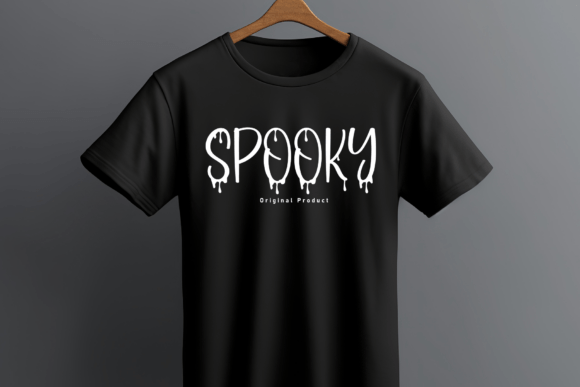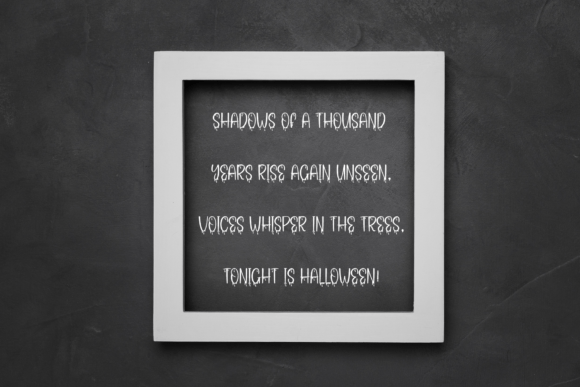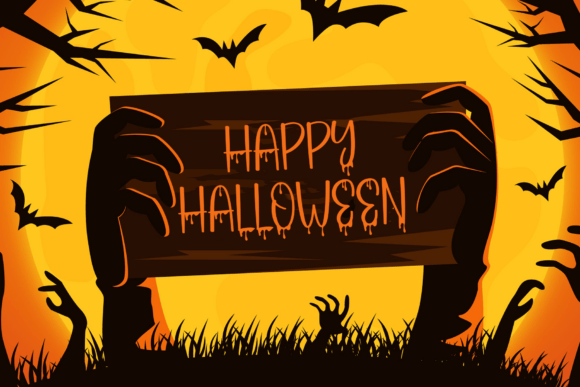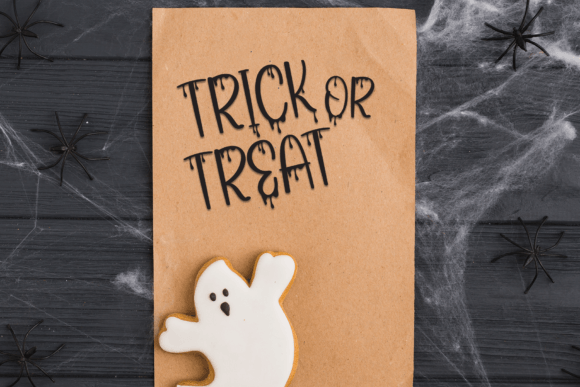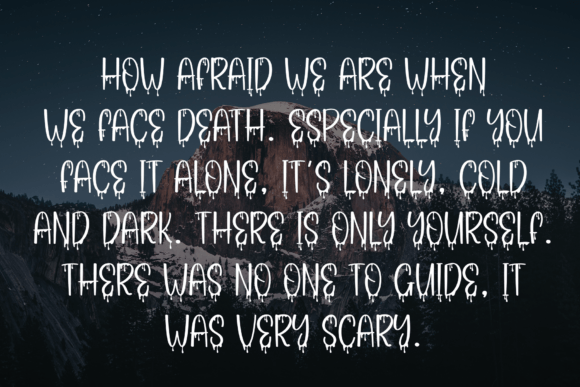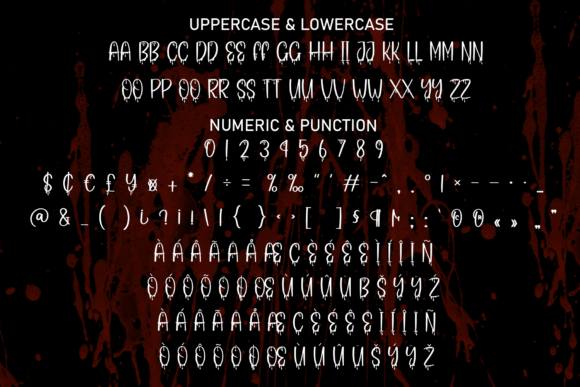
The Blood Feast Font: A Spooky, Horror-Inspired Masterpiece
As a designer, I’ve had my fair share of late nights scrolling through font libraries, searching for that perfect typeface to bring a project to life. But one font that still gives me goosebumps to this day is the Blood Feast font. Its bold, dripping handwritten style is perfect for horror themes or Halloween projects, and I’m excited to share my experience with you.
A Personal Design Moment: When Fonts Make or Break a Project
I recall working on a Halloween-themed project for a client who wanted a spooky, eerie vibe. I spent hours browsing through font libraries, but nothing seemed to fit the bill. That was until I stumbled upon the Blood Feast font. Its uneven letters and dripping edges immediately caught my attention, and I knew I had found the perfect fit. The client loved it, and the project turned out amazing.
So, what makes the Blood Feast font so special? Here are some things I love:
• ✨ Unique and eye-catching design: The Blood Feast font is unlike any other font I’ve seen. Its bold, dripping style is sure to grab attention.
• ✅ Perfect for horror themes or Halloween projects: The font’s spooky, eerie vibe makes it ideal for projects that require a creepy atmosphere.
• ✅ Easy to read: Despite its bold and dripping design, the font is surprisingly easy to read, even in larger blocks of text.
However, there are a few quirks to be aware of:
• 🤔 Limited use cases: The Blood Feast font is quite specialized, so it may not be suitable for projects that require a more formal or elegant look.
• ⚠️ May not work well in small sizes: Due to its bold and dripping design, the font may not be legible in very small sizes.
The Designer Inspiration Behind Blood Feast
The Blood Feast font was inspired by the horror movies of the 1970s and 1980s. The designer wanted to create a font that captured the spooky, eerie atmosphere of these classic horror films. The result is a font that’s perfect for horror themes or Halloween projects.
Q: What type of projects is the Blood Feast font best suited for?
A: The Blood Feast font is perfect for horror themes or Halloween projects, but it can also be used for other creative projects that require a bold, eye-catching design.
Q: Is the Blood Feast font easy to read?
A: Yes, despite its bold and dripping design, the Blood Feast font is surprisingly easy to read, even in larger blocks of text.